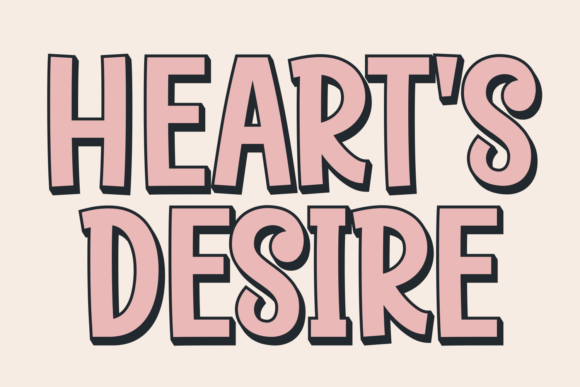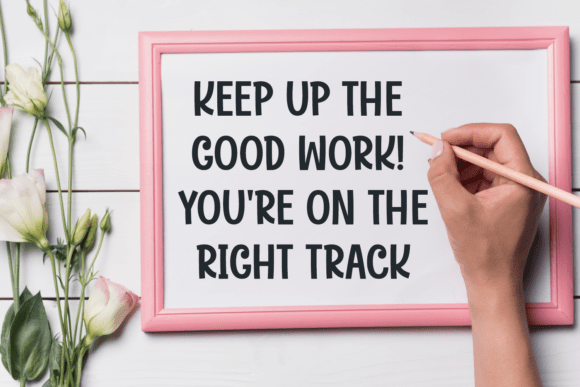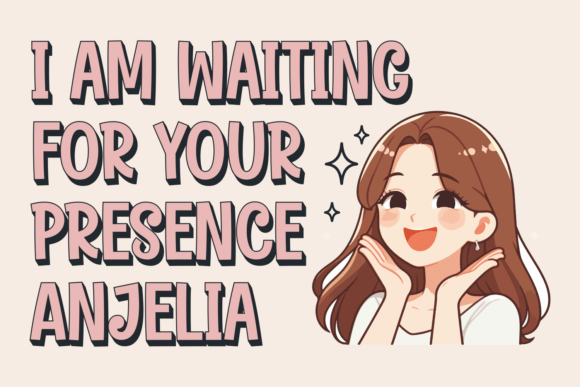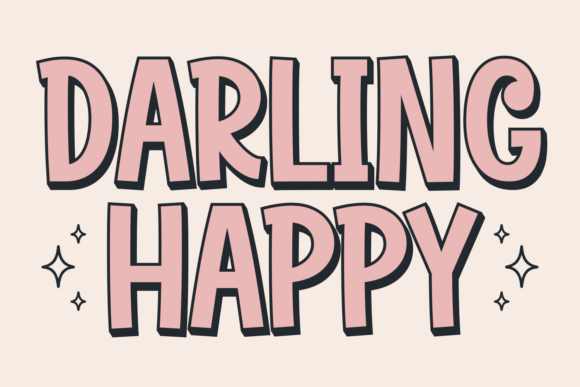
Unleash Your Inner Child with the Bright Barbie Font
Have you ever been stuck on a design project, searching for that one special font to bring your ideas to life? That’s exactly what happened to me last summer, when I was tasked with creating a promotional campaign for a children’s amusement park. I wanted something that would capture the essence of childhood wonder and excitement. And then, I stumbled upon the Bright Barbie Font.
This enchanting ligature font is more than just a pretty face – it’s a perfect blend of whimsy and playfulness that’s sure to bring a smile to anyone’s face. Whether you’re designing for a school project, a holiday card, or a vacation brochure, the Bright Barbie Font is the perfect choice to add a touch of magic to your design.
Bright Barbie Font Key Features
- Font Family: Bright Barbie Font is a sans-serif script font family, designed to evoke a sense of playfulness and whimsy.
- Unique Characteristics: Features a distinctive, hand-drawn style with exaggerated lines and curves, making it perfect for creating eye-catching titles and headings.
Bright Barbie Font Review
Overall, I was excited to try out the Bright Barbie Font, and while it has its charms, I have mixed feelings about its effectiveness.
- The font is playful and fun, making it perfect for projects that need a lighthearted touch.
- The bold and vibrant colors are sure to grab attention and add a pop of fun to any design.
- The font is highly customizable, allowing users to adjust the colors, size, and style to suit their needs.
- The font may be too loud or overwhelming for more serious or professional projects.
- The font is not suitable for small text sizes, as the bold lines may become difficult to read.
- The font is not as versatile as some other fonts, and may not work well in certain design contexts.
Overall, I would recommend the Bright Barbie Font for projects that need a fun and playful touch. However, it may not be the best choice for more serious or professional designs. With some careful planning and use, it can be a great addition to your design toolkit.
The Bright Barbie font is ideal for:
– Children’s book illustrations
– Party invitations and decorations
– Fashion and beauty branding
– To get the most out of the Bright Barbie font, use it in bold and playful combinations with other fonts and graphics.